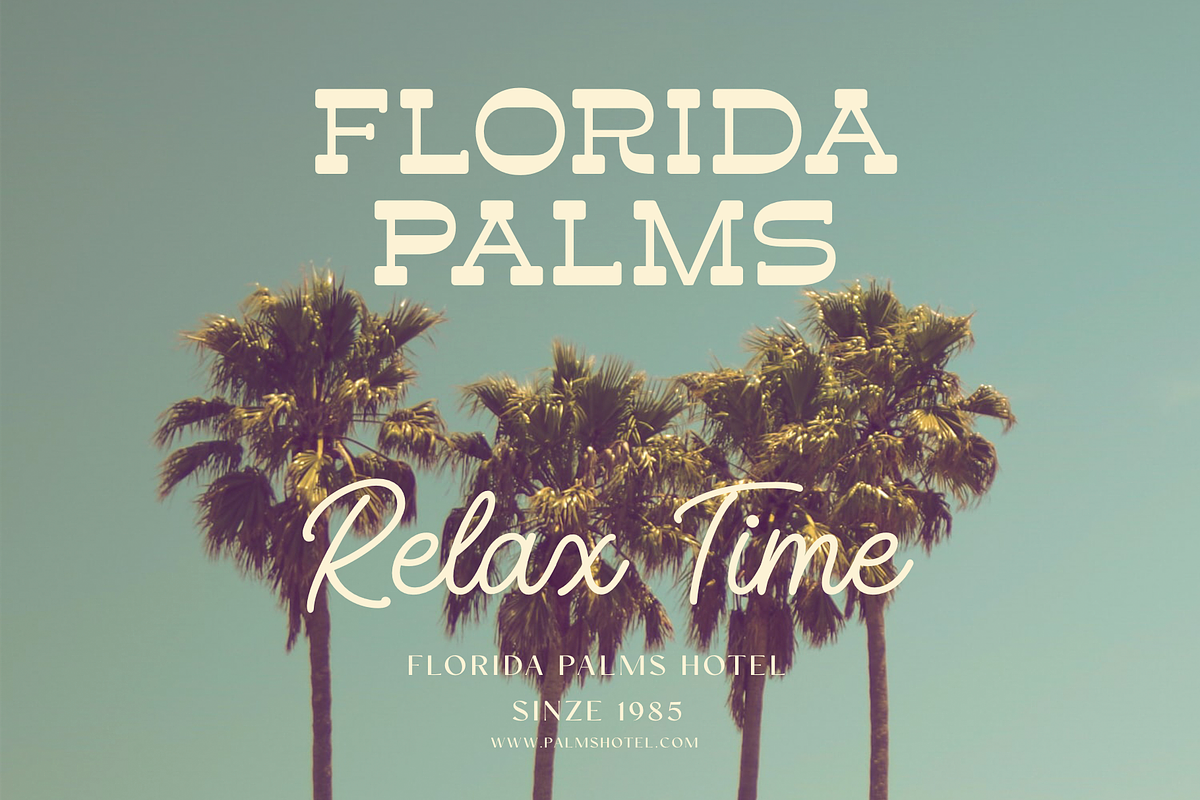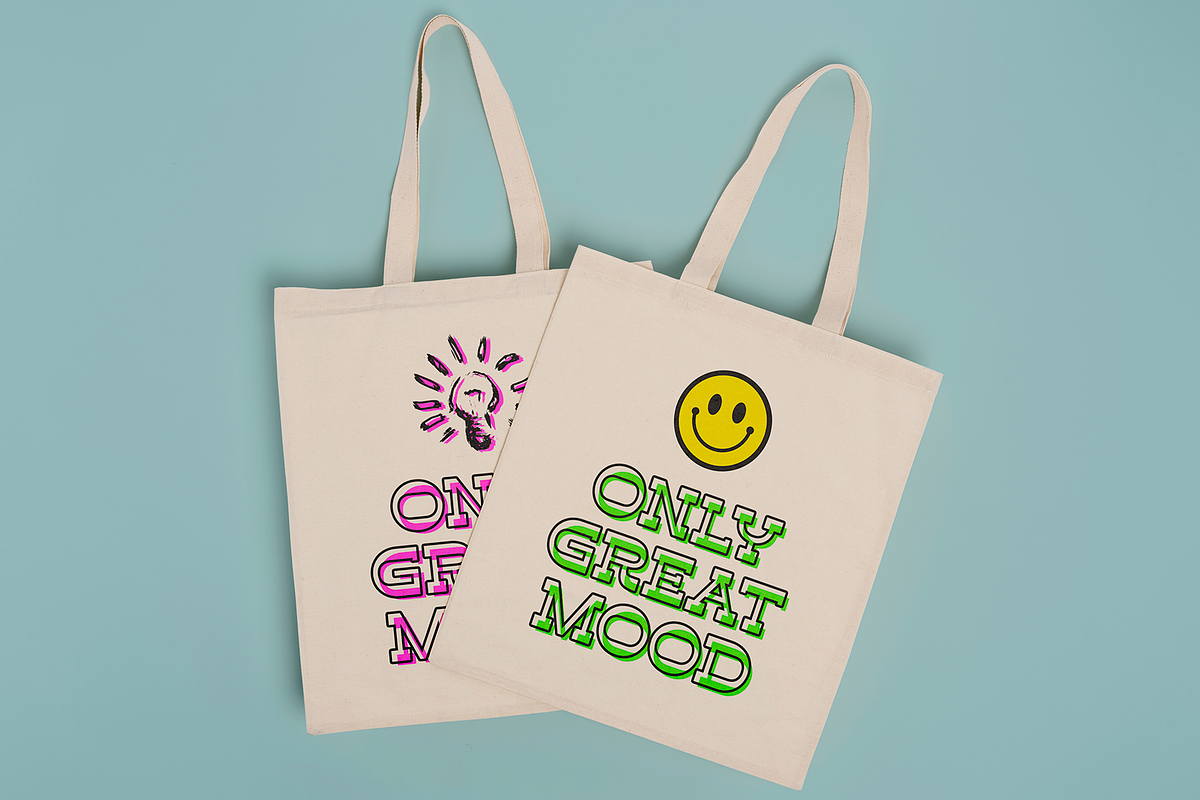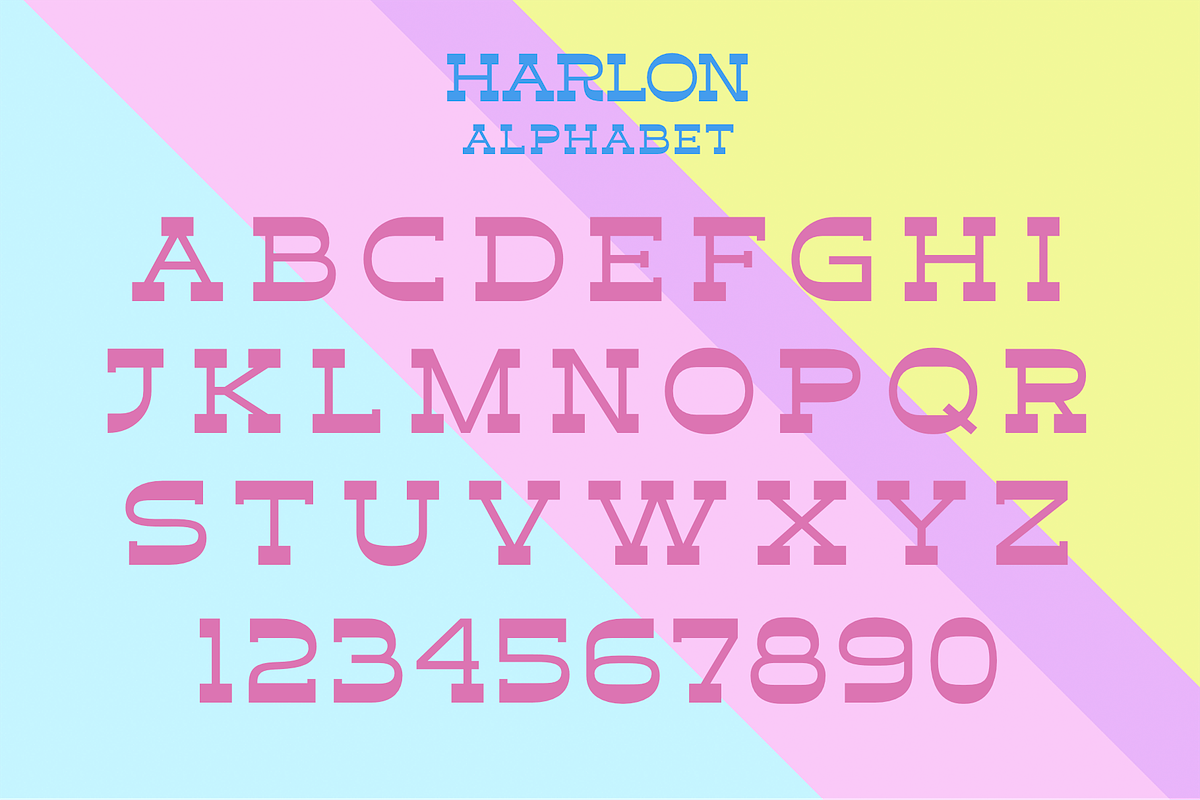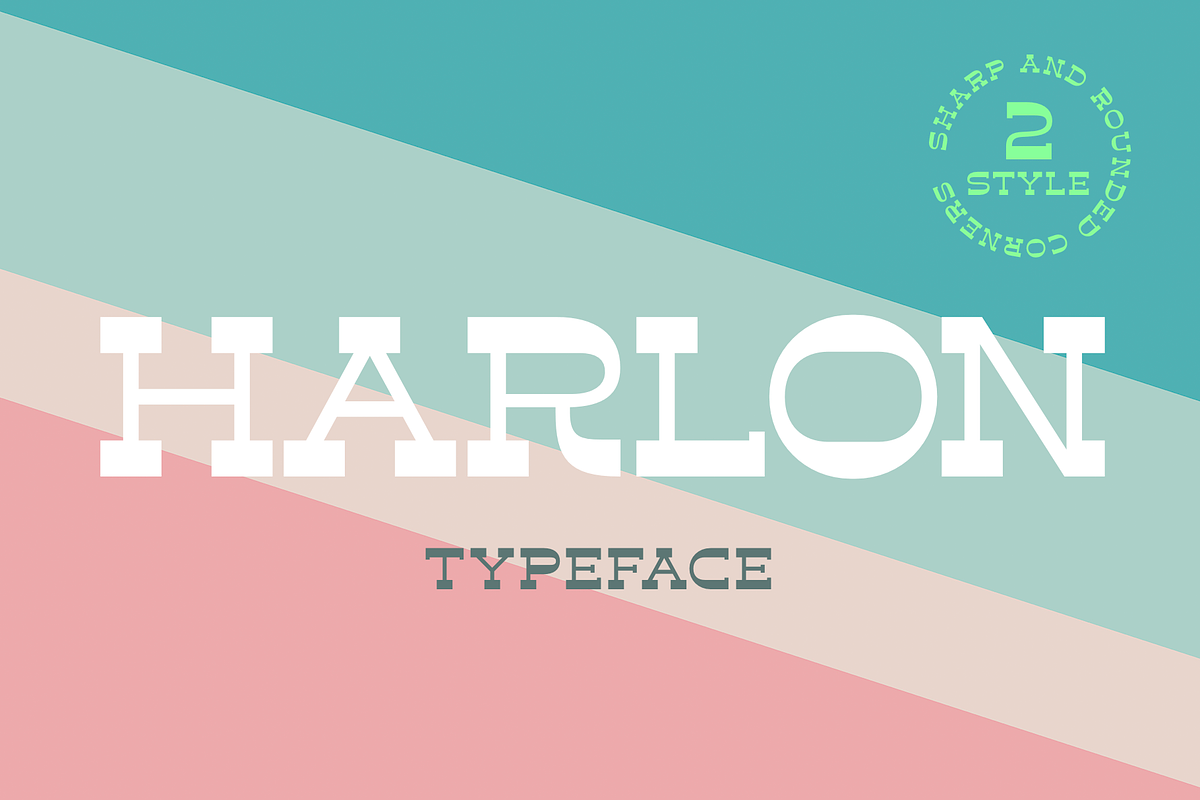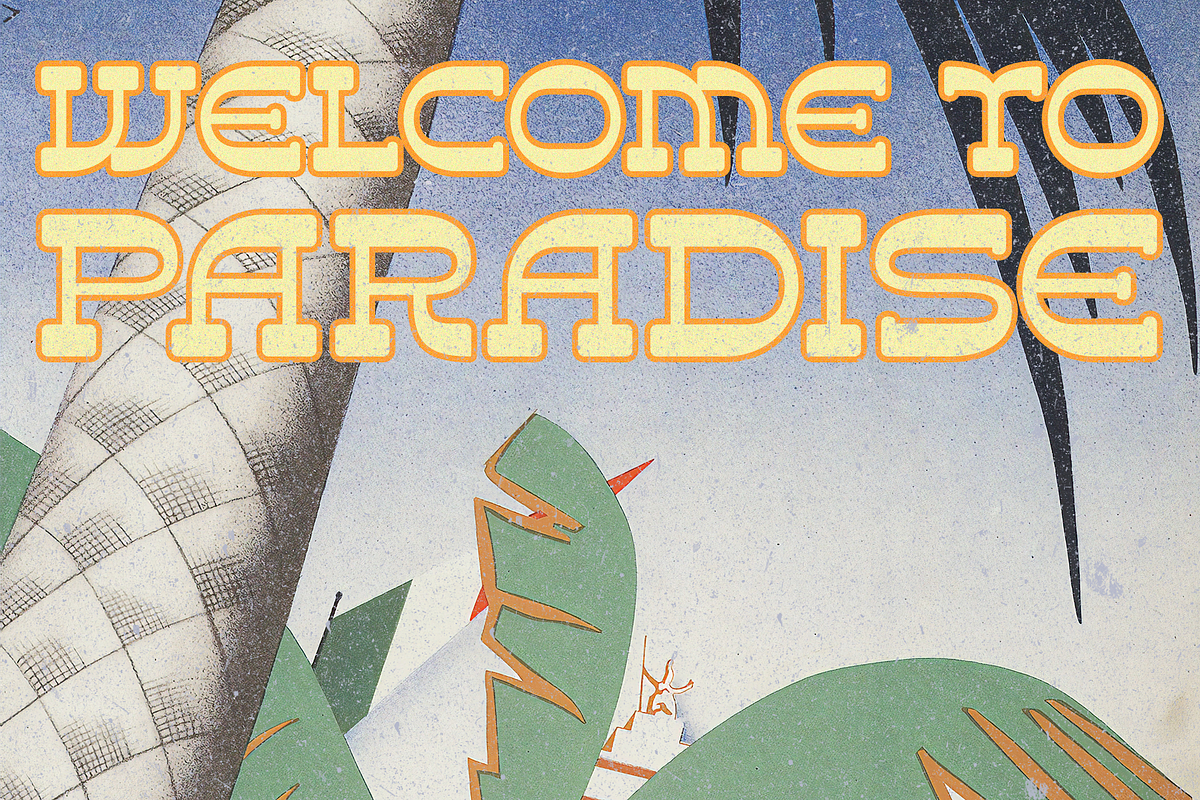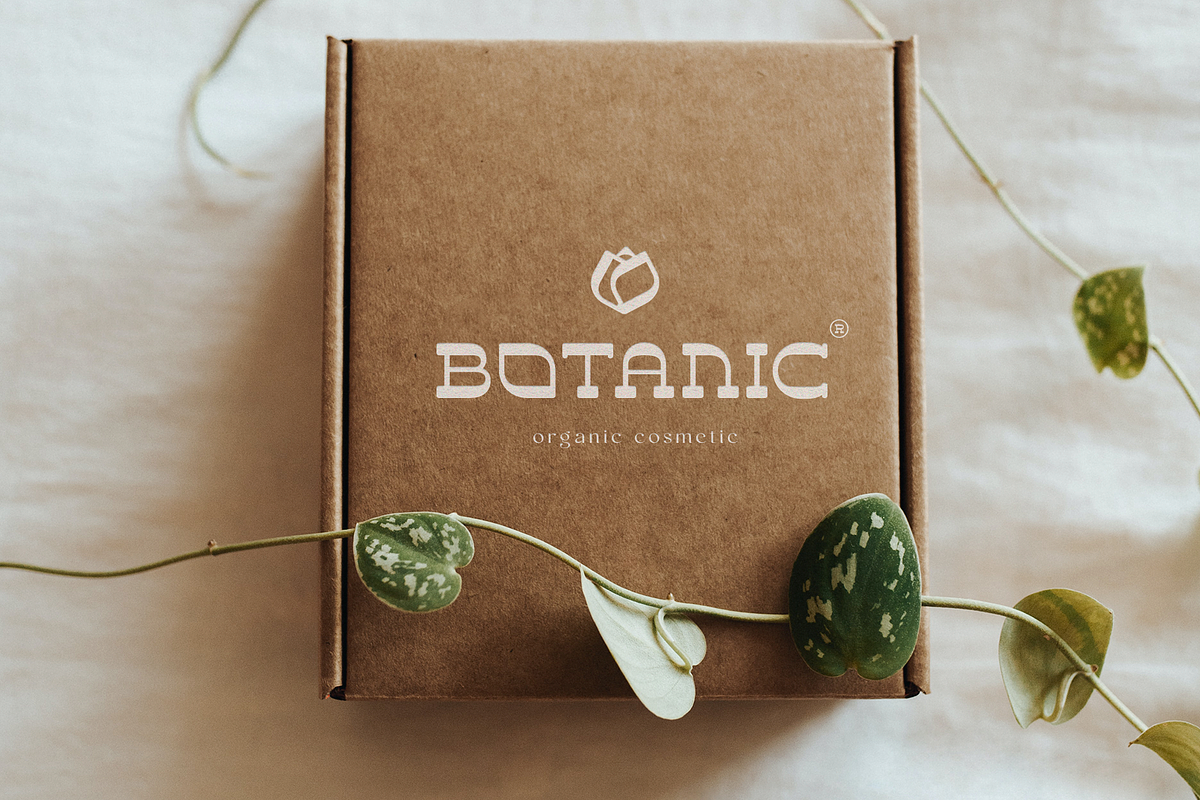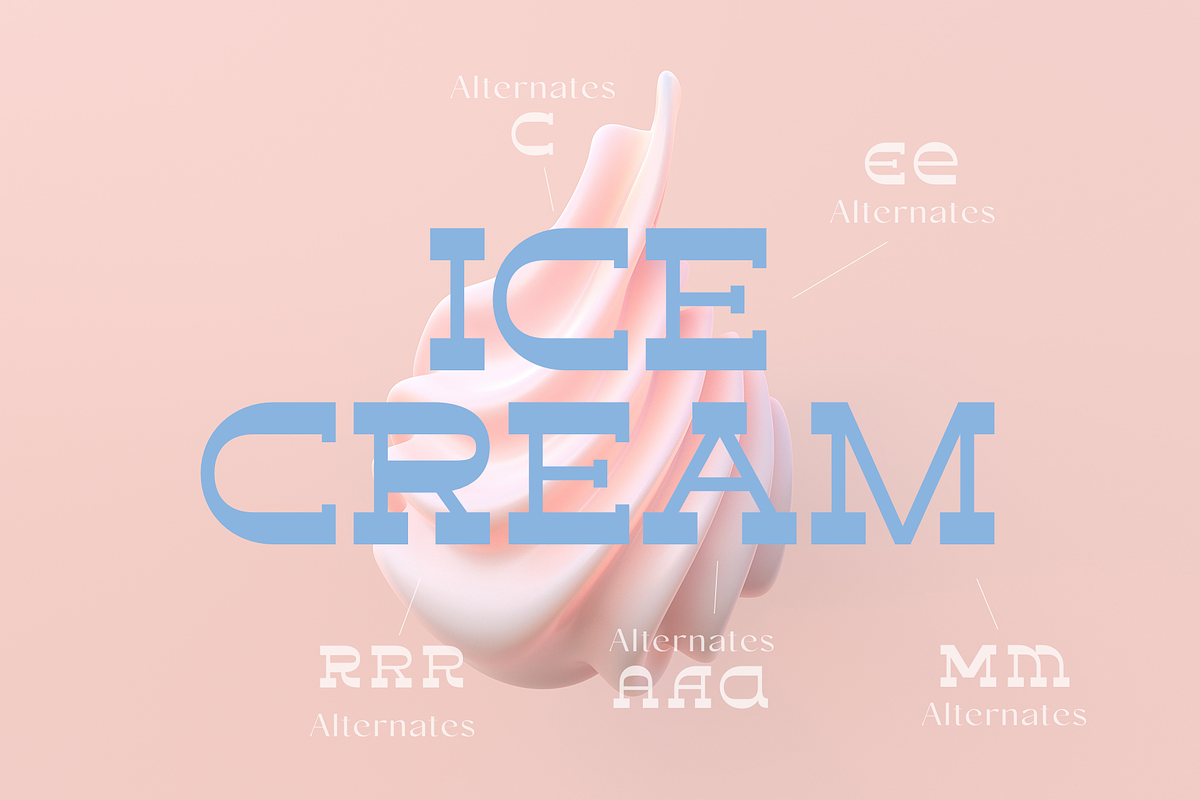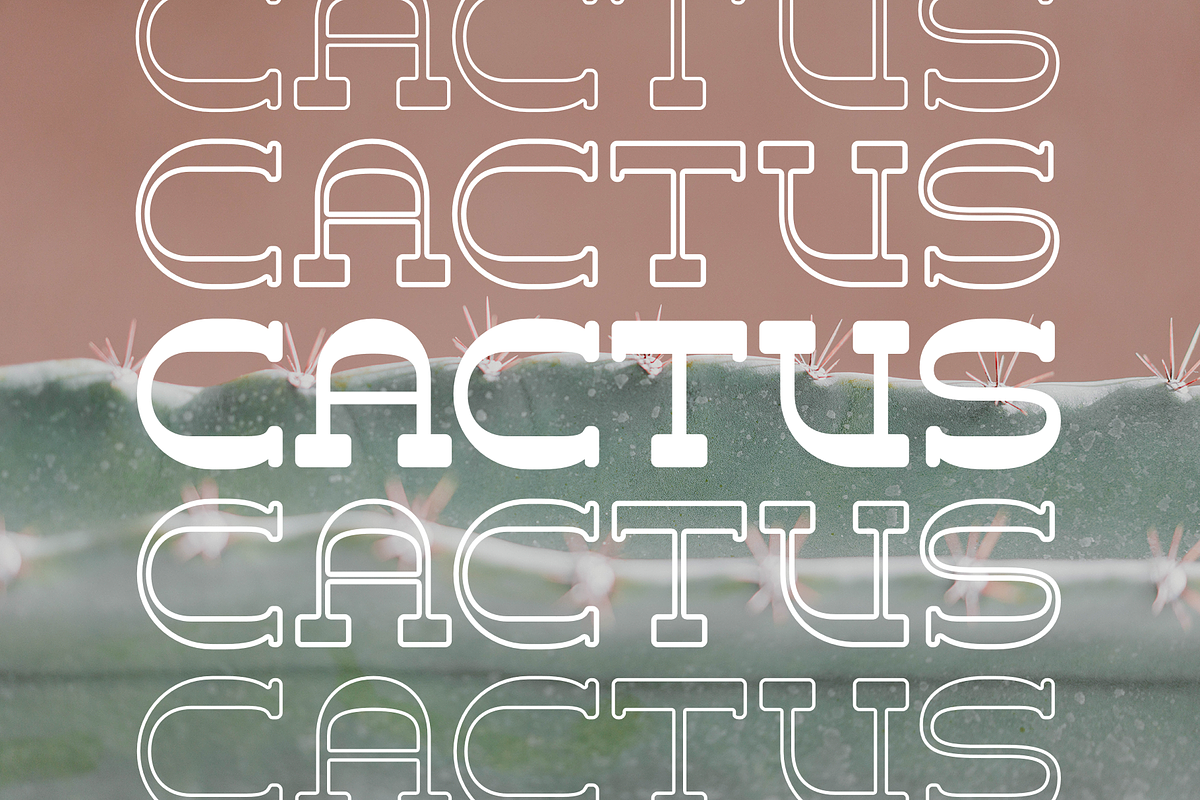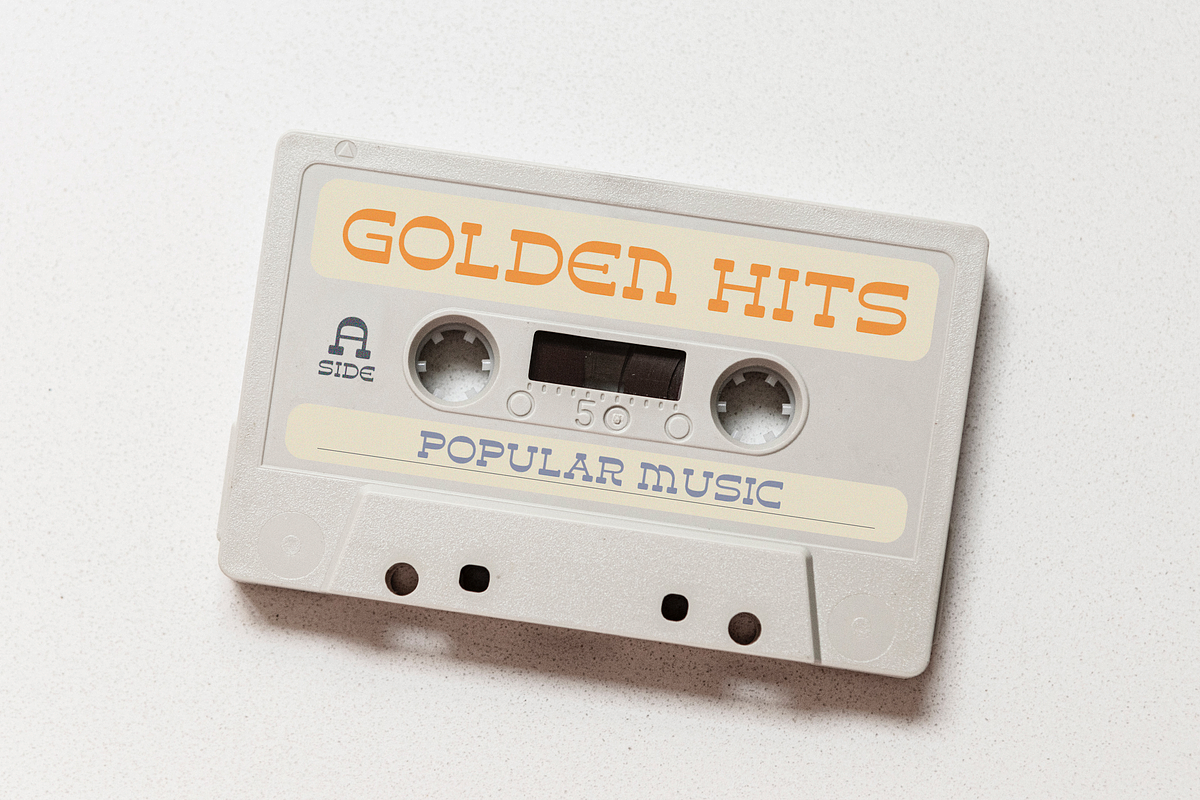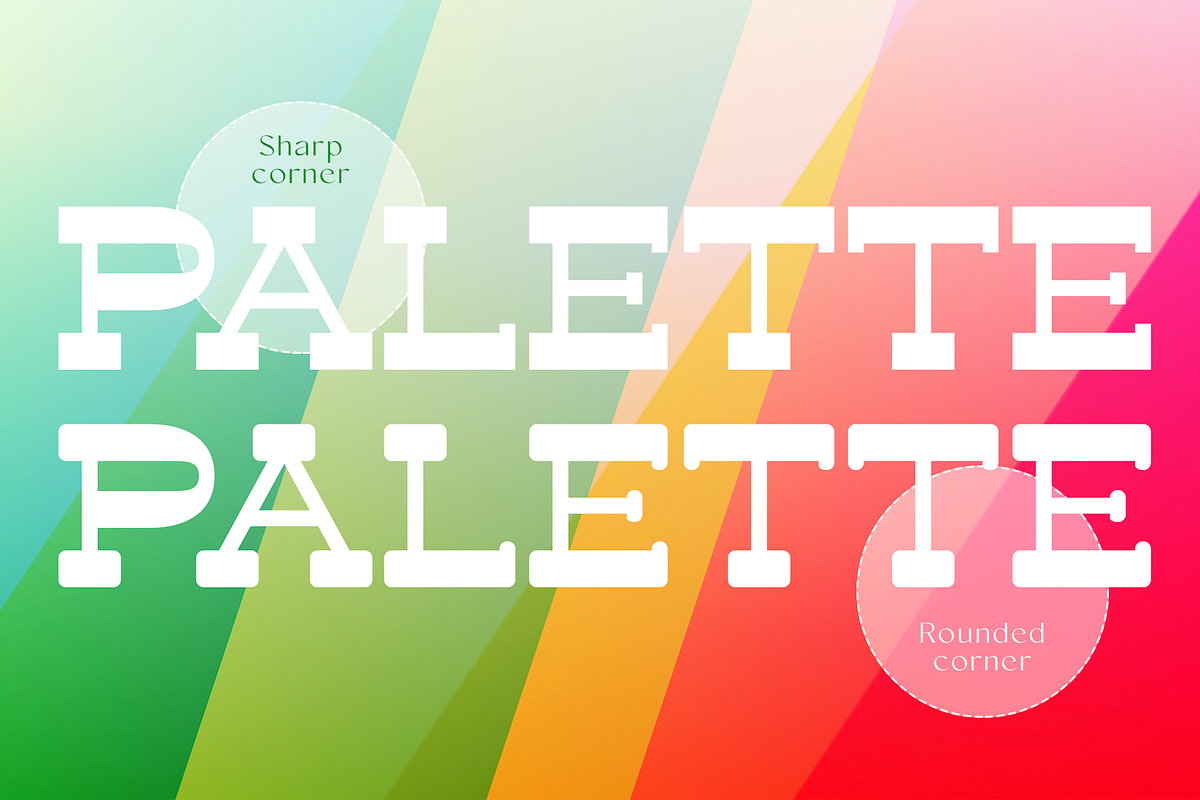
Harlon
Harlon This is a display font in two headings, sharp corner and rounded corners. This font is perfect for titles, book covers, logos, T-shirt printing, packaging and much more, and also this font includes stylistic alternative.This font is easy to use and has OpenType features.
Following international symbols support: ÀÁÂÃÄÅĄÇĆÈÉÊËĘÌÍÎÏÐÑŃŁÒÓÔÕÖØÙÚÛÜŚŠŸÝŹŻŽßàáâãäåçèéêëìíîïðñòóôõöøùúûüýÿąćęłńśšźżž
Full Capital alphabet A-Z